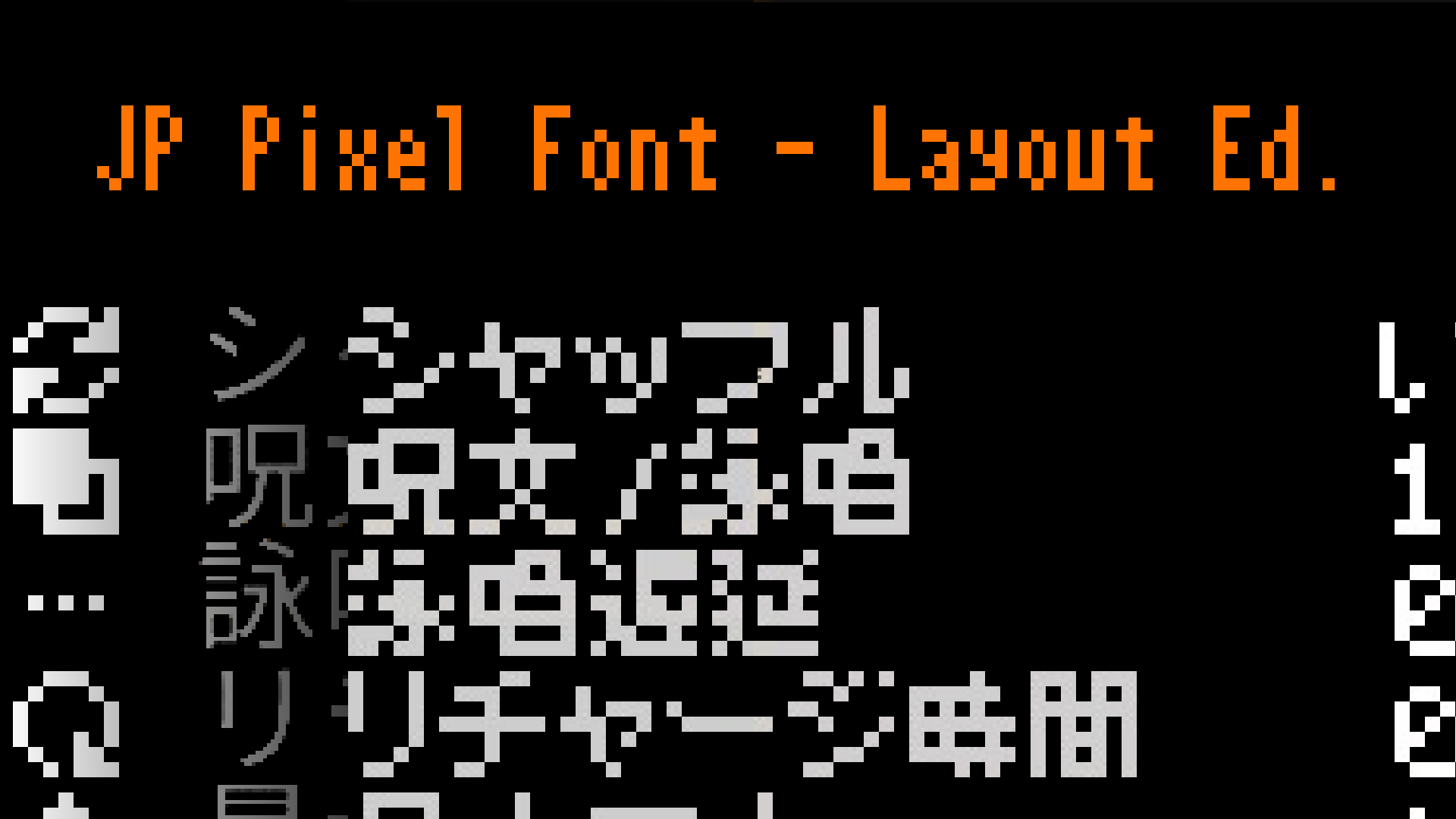
JP Pixel Font – Layout Ed.
JP Pixel Font – Layout Edition: A Visual Upgrade for Noita
Rediscover Noita’s World with a Classic Aesthetic
Dive back into the treacherous depths of Noita with the JP Pixel Font – Layout Edition mod. This meticulously crafted modification brings a touch of nostalgic charm to your gameplay by introducing a pixel art font designed with Japanese translations in mind. The creators have focused intently on replicating the original game’s screen layout, ensuring that the immersion of your magical, alchemical journey remains undisturbed while enhancing the visual clarity of the game’s text.
Enhanced Readability, Faithful Layout
The JP Pixel Font – Layout Edition aims to strike a perfect balance between authentic visual style and improved readability. For those who appreciate the classic pixelated aesthetic of early gaming, this font offers a familiar and comforting feel. Crucially, the development of this edition prioritized maintaining the game’s intended screen layout. This means that menus, item descriptions, and all other in-game text will appear as intended by the original design, preventing any jarring visual disruptions to your exploration and combat.
Key Features of the JP Pixel Font – Layout Edition:
- A charming pixel art font specifically designed for Japanese text integration.
- Focus on recreating the original game’s screen layout for an authentic experience.
- Improved text readability without compromising the game’s visual integrity.
- Enhances the nostalgic feel of Noita’s presentation.
- Seamless integration for a visually cohesive gameplay experience.
Whether you are a longtime Noita player looking for a subtle yet impactful visual refresh or someone who appreciates the artistry of retro-inspired graphics, the JP Pixel Font – Layout Edition offers a delightful way to experience the game anew. Experience the magic, the chaos, and the secrets of Noita with text that feels both familiar and beautifully presented.